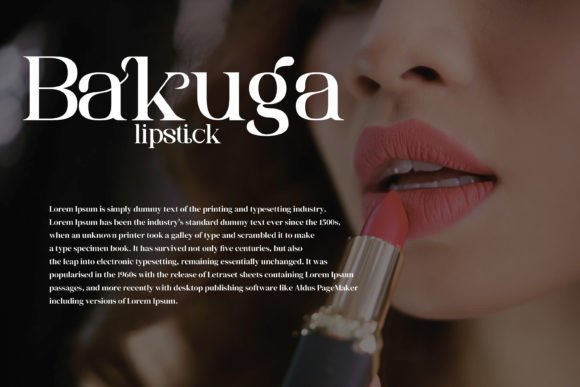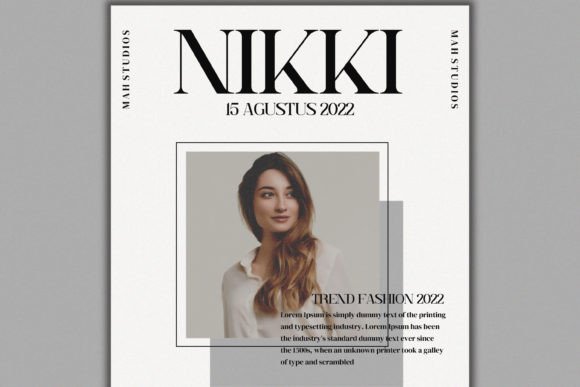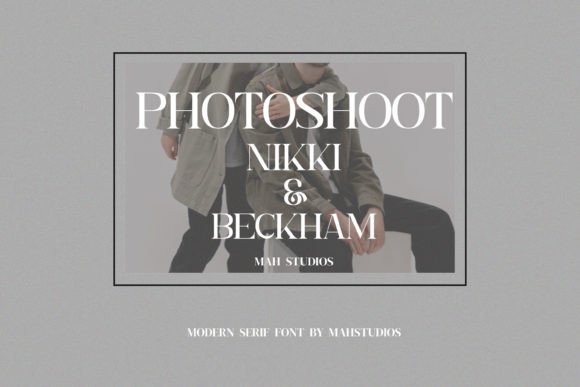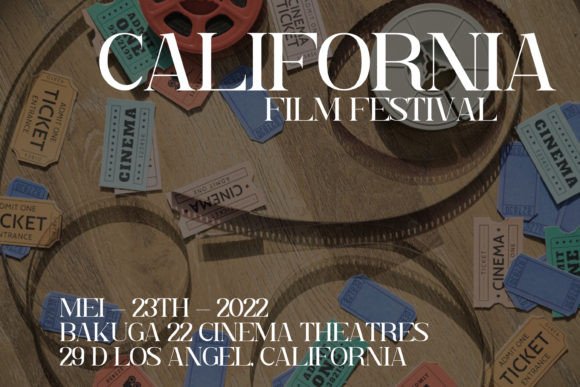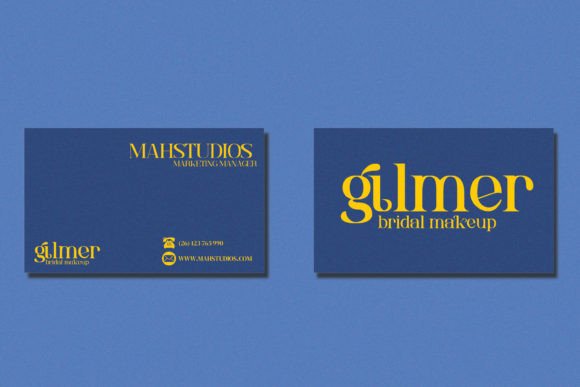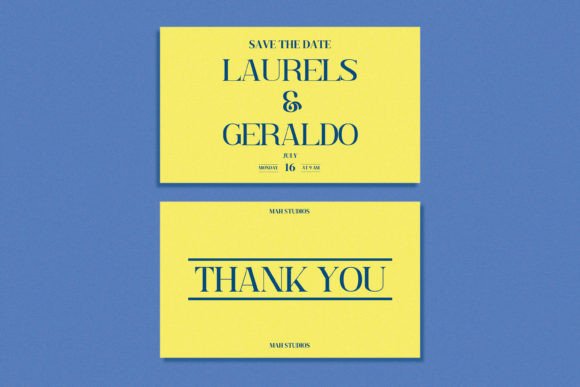
Have you ever found yourself staring at a blank canvas, trying to decide on the perfect font to bring your design to life? It’s a moment we’ve all been there – a moment of pure creative frustration, where the right choice seems just out of reach. But what if I told you that there’s a font that can make all the difference? Introducing the Bakuga Font, a beautiful serif font that’s perfect for any project that requires a touch of luxury and sophistication.
Whether you’re designing logos, branding projects, or product packaging, the Bakuga Font is the perfect addition to your design arsenal. With its PUA encoded feature, you’ll have access to a wide range of glyphs and swashes that will take your designs to the next level. As a designer, you know how valuable it is to have the right tools at your disposal – and the Bakuga Font is definitely one of them.
Bakuga Font Key Features
- Font Family: Bakuga Font is a unique and customizable font family designed for use in digital and print media.
- Customization: Bakuga Font offers advanced customization options, including font weight, style, and ligature control, allowing designers to tailor the font to their specific needs.
- Unique Characteristics: The font’s unique blend of modern and traditional design elements, along with its extensive language support, make it an ideal choice for a wide range of applications, from branding and advertising to publishing and editorial content.
Bakuga Font Review
I recently had the chance to work with the Bakuga font, and I must say it’s an interesting addition to the world of typography. ✨ One thing that immediately stood out to me was its unique, quirky feel. It’s a true showstopper for anyone looking to add some personality to their design. The font is highly legible, even at smaller sizes, which is a major plus.
- The Bakuga font is highly customizable, allowing designers to adjust the weight, spacing, and more to fit their specific needs. ✨
- It’s also relatively lightweight, making it a great choice for web and mobile design. ✨
- The font comes in a wide range of weights, from thin to extra bold, giving designers plenty of options for creating visually appealing typography.
That being said, there are a few limitations to consider. ⚠️ The font can feel a bit overbearing at times, and some of the more extreme weights may be too much for certain designs. Additionally, the font may not be suitable for use in smaller text sizes, as the characters can become difficult to read.
Overall, I’d say the Bakuga font is a great choice for designers looking to add some flair to their work. While it may not be perfect for every project, it’s definitely worth considering for anything that needs a bit of personality. With some careful consideration and adjustment, the Bakuga font can be a real showstopper.
– Use Bakuga Font for titles and headings to add a touch of elegance.
– Experiment with different font styles and sizes to create visual interest.
– Pair Bakuga Font with other fonts to create a unique and eye-catching combination.
Bakuga Font is perfect for:
– Artistic and creative projects
– Any design where a touch of elegance and sophistication is needed.